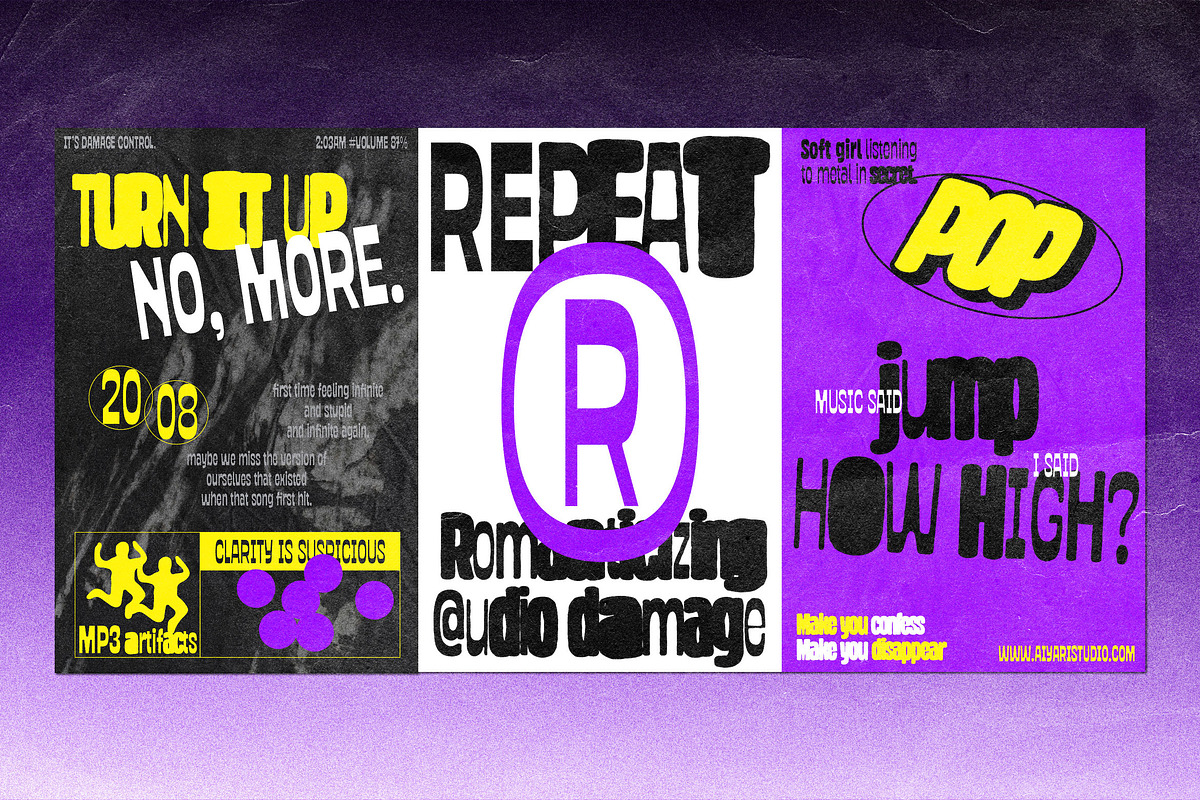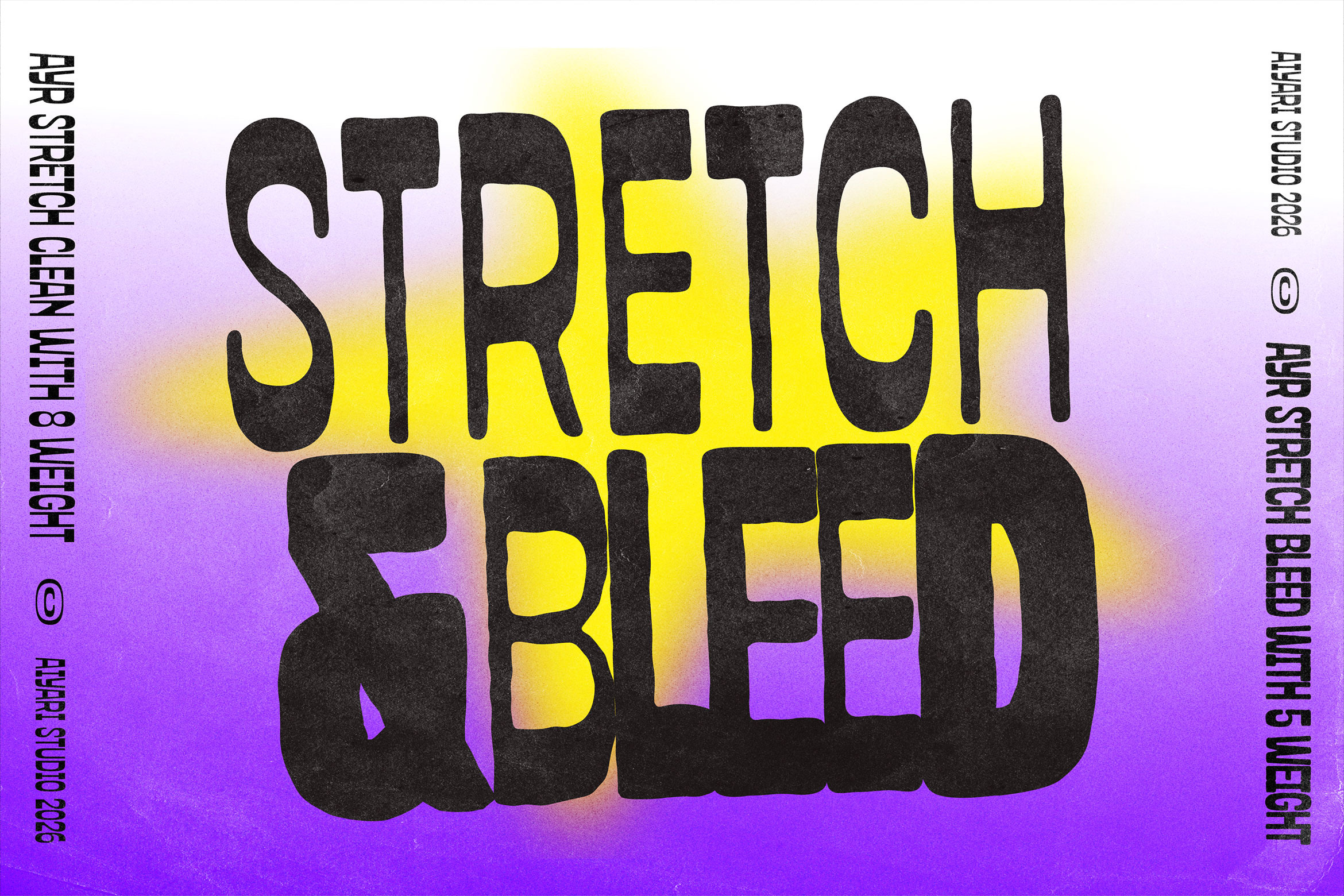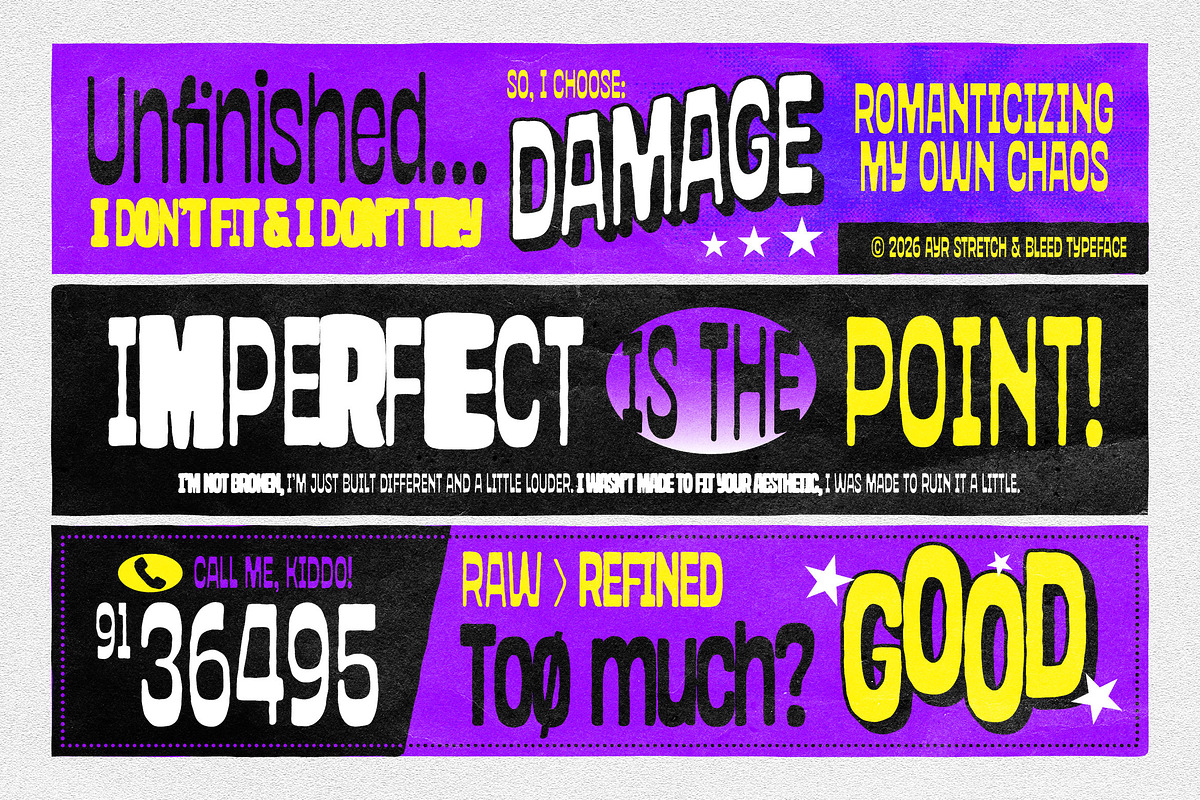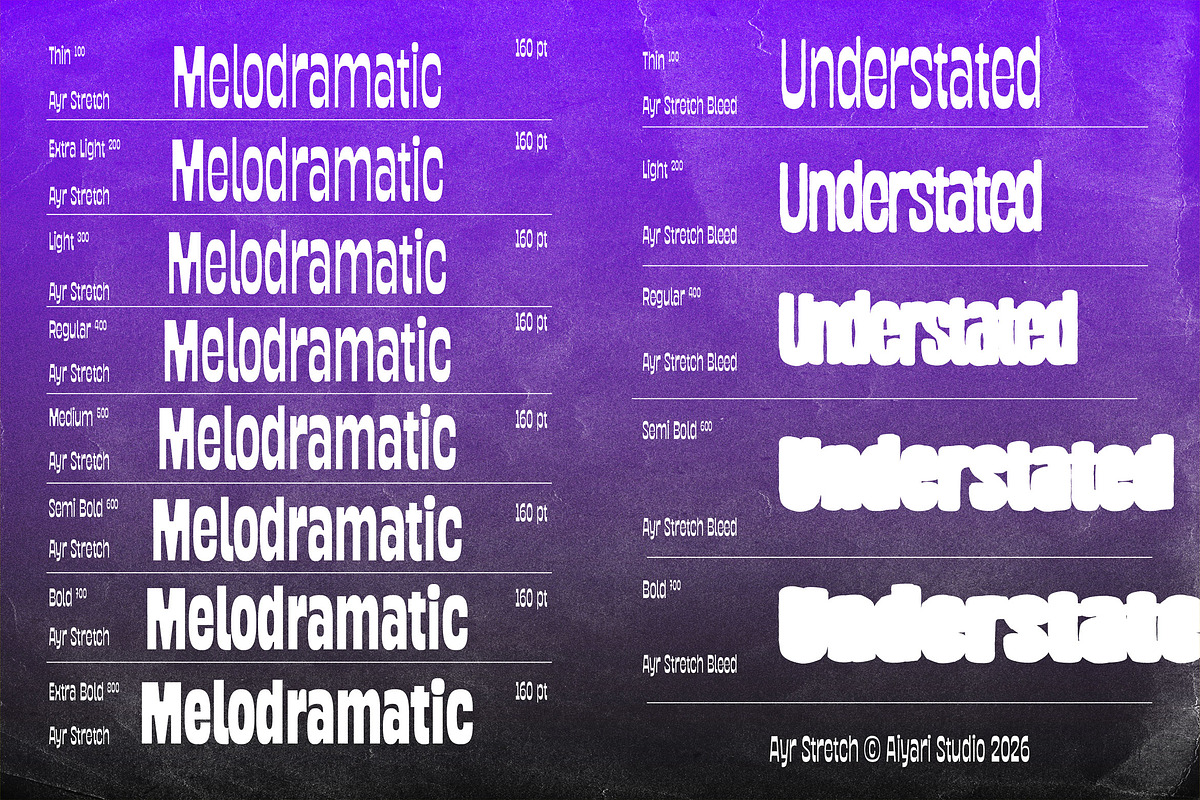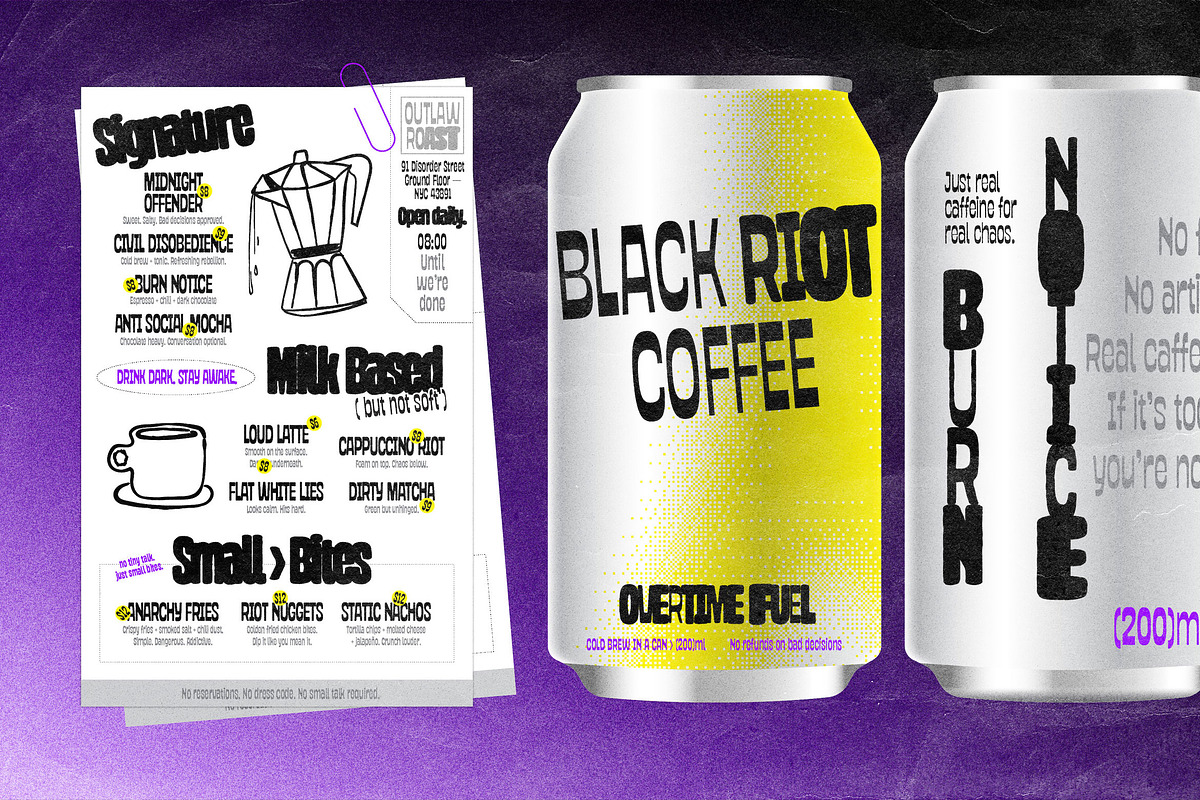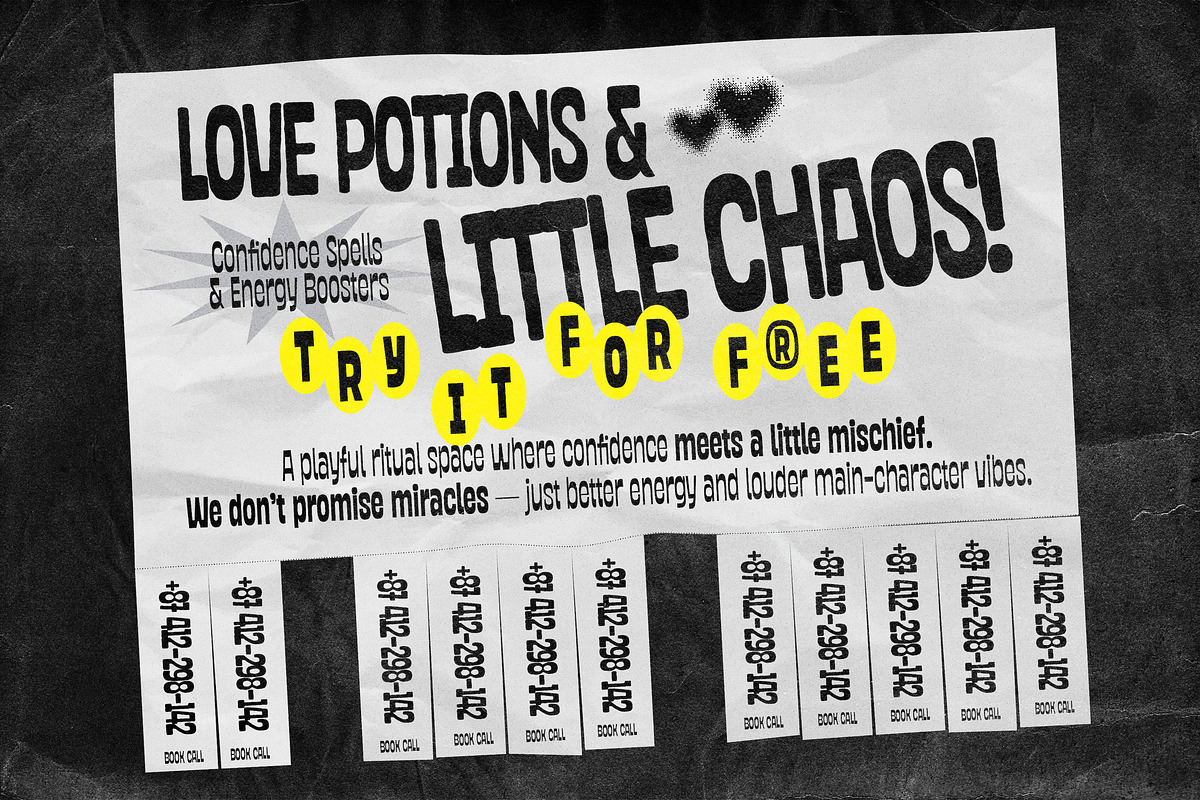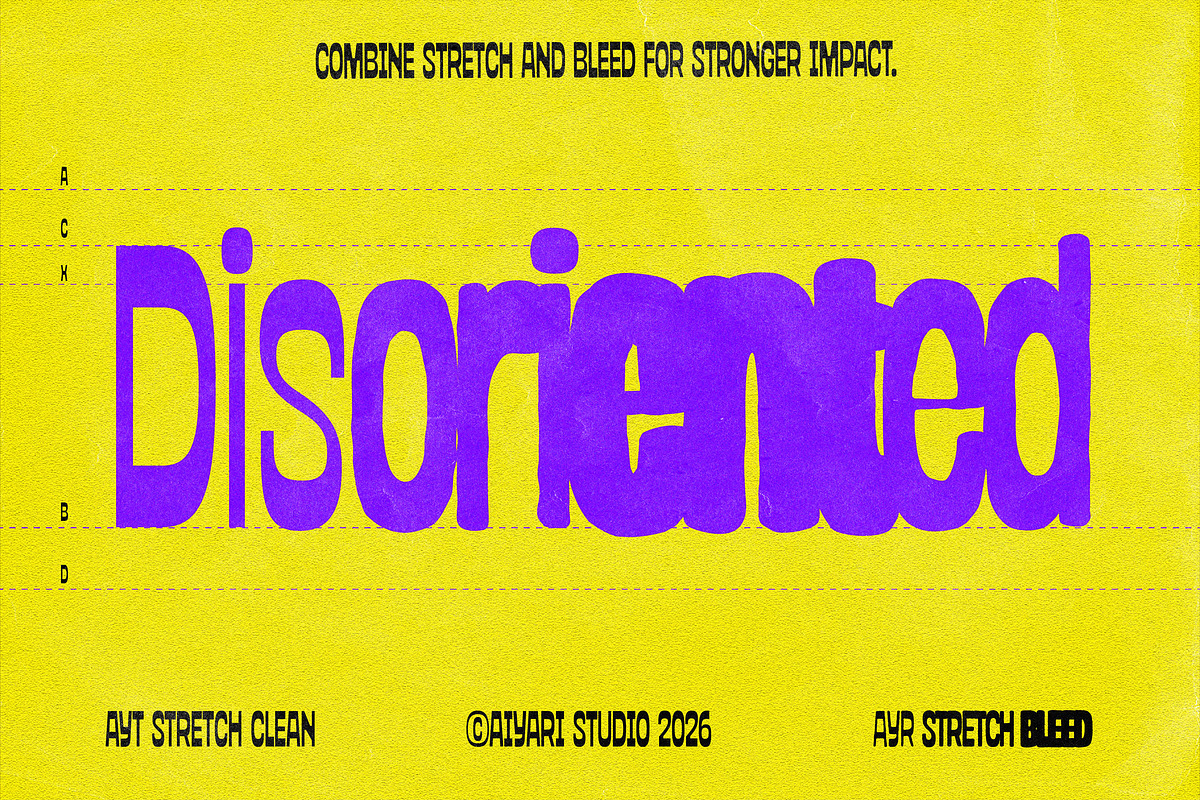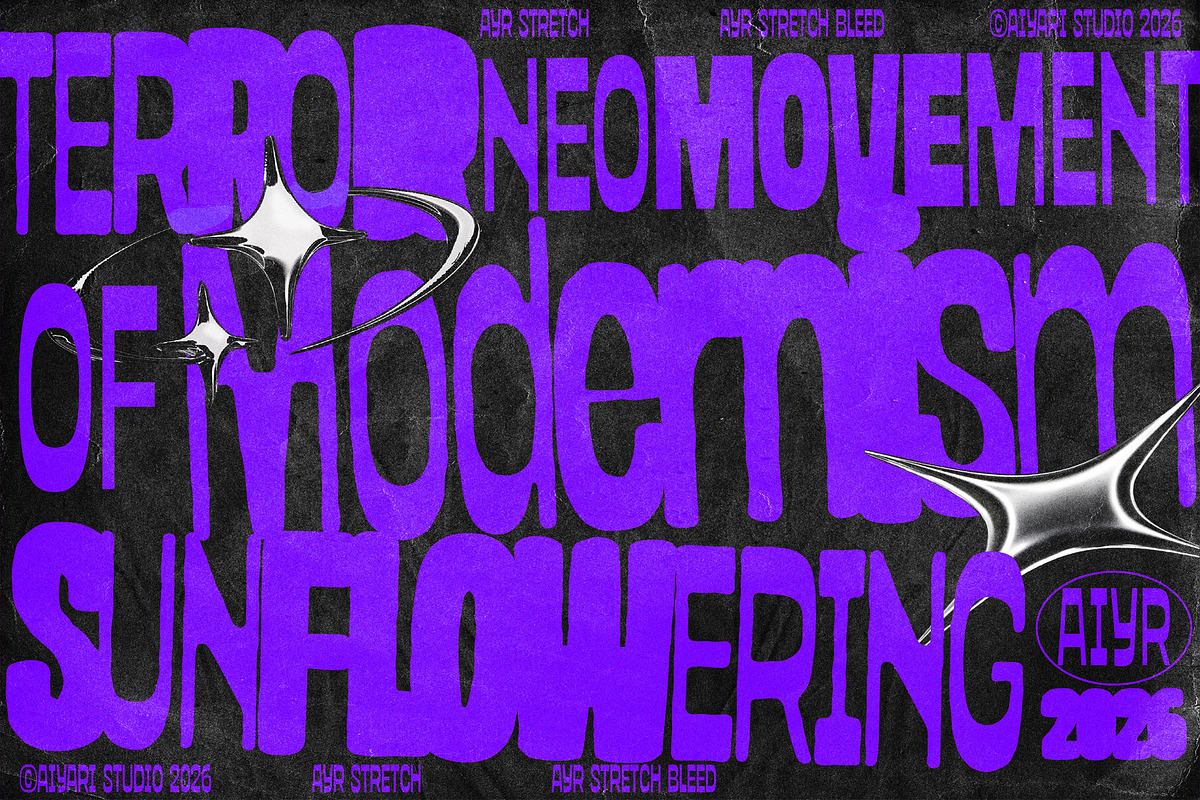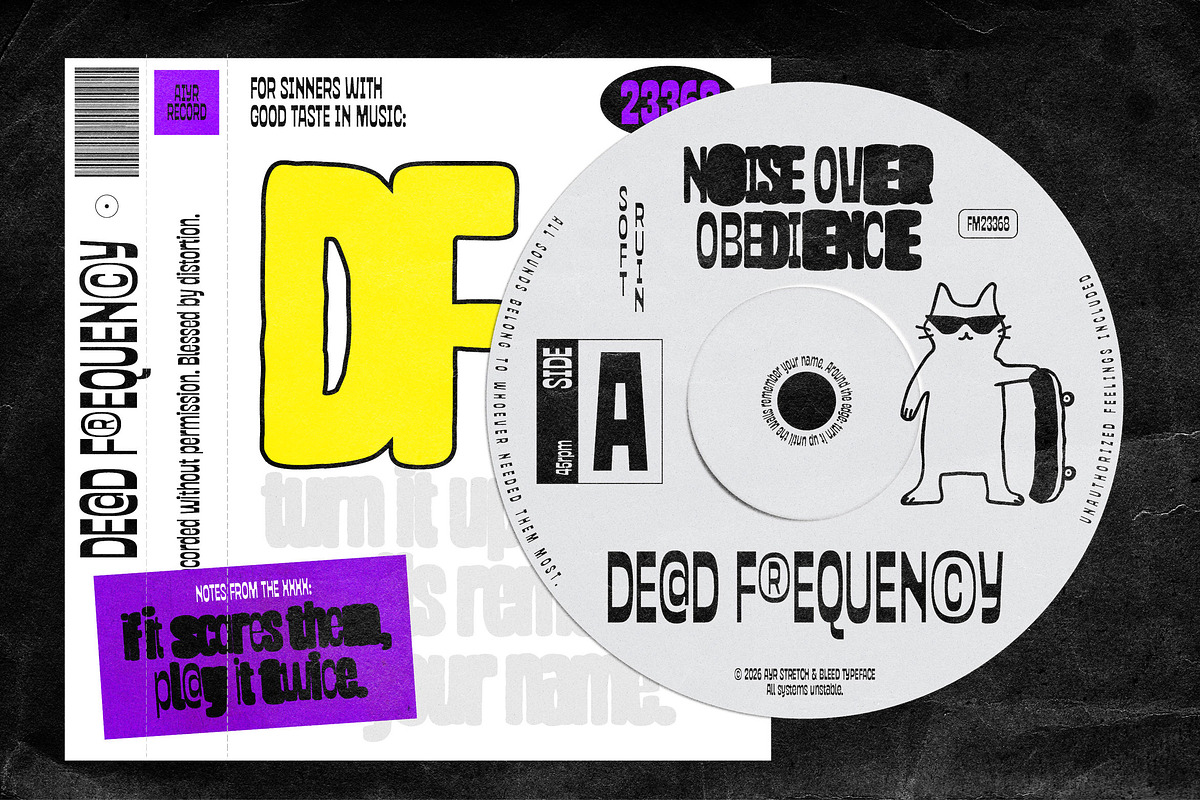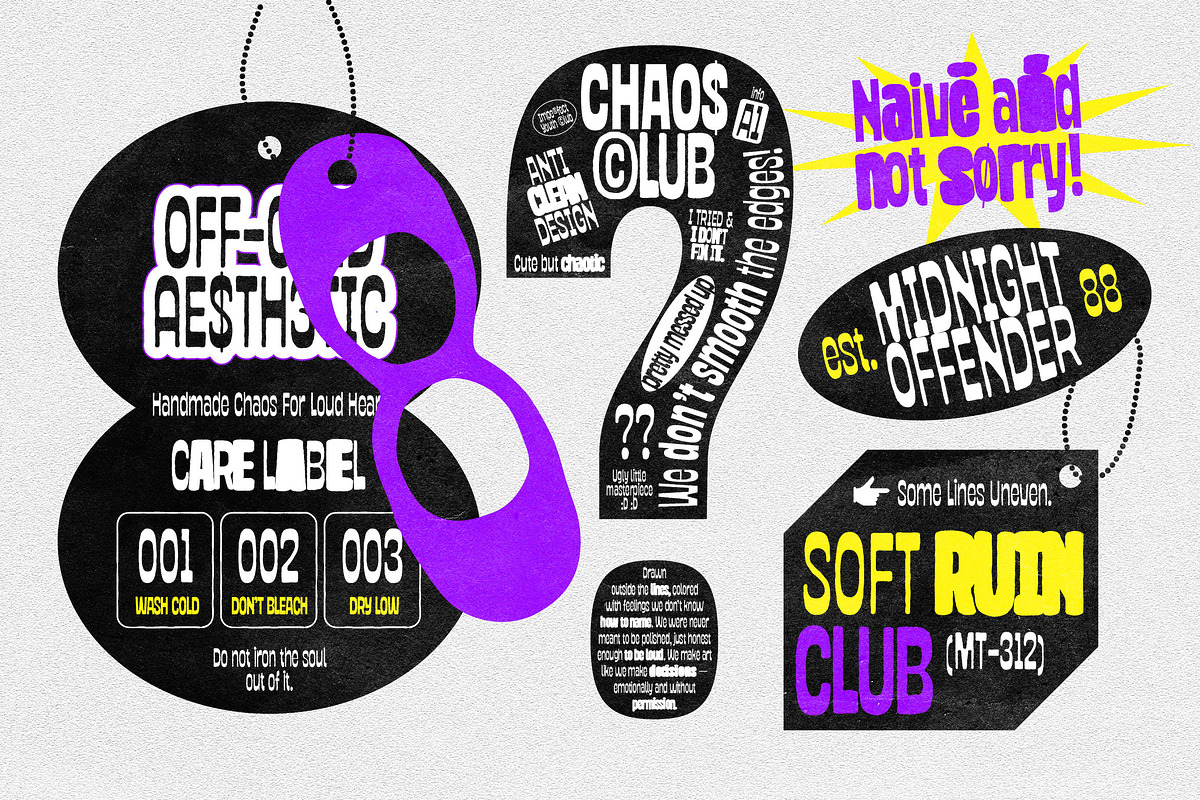
Stretch & Bleed - Brutalist Font
Stretch & Bleed is a striking, dual-family typeface that balances the raw edge of brutalist design with the tactile warmth of vintage printing. It serves up a unique typographic experience, offering both razor sharp clarity and ink-soaked nostalgia to push your layouts further.
AYR Stretch Clean: A sharp, "squeezed," and melodramatic sans-serif. Available in an expansive 8 weights (from Thin 100 to Extra Bold 800), it delivers a clean, unapologetic brutalist aesthetic.
AYR Stretch Bleed: The nostalgic counterpart. Featuring a heavy, textured ink-bleed effect across 5 weights (Thin 100 to Bold 700), it brings a raw, understated, and organic feel, perfectly mimicking heavy ink on porous paper.
This typeface is the perfect ingredient for bold, unconventional designs. It is expertly crafted for striking posters, brutalist branding, bold editorial layouts, and packaging that demands a mix of contemporary edge and retro-textured character.